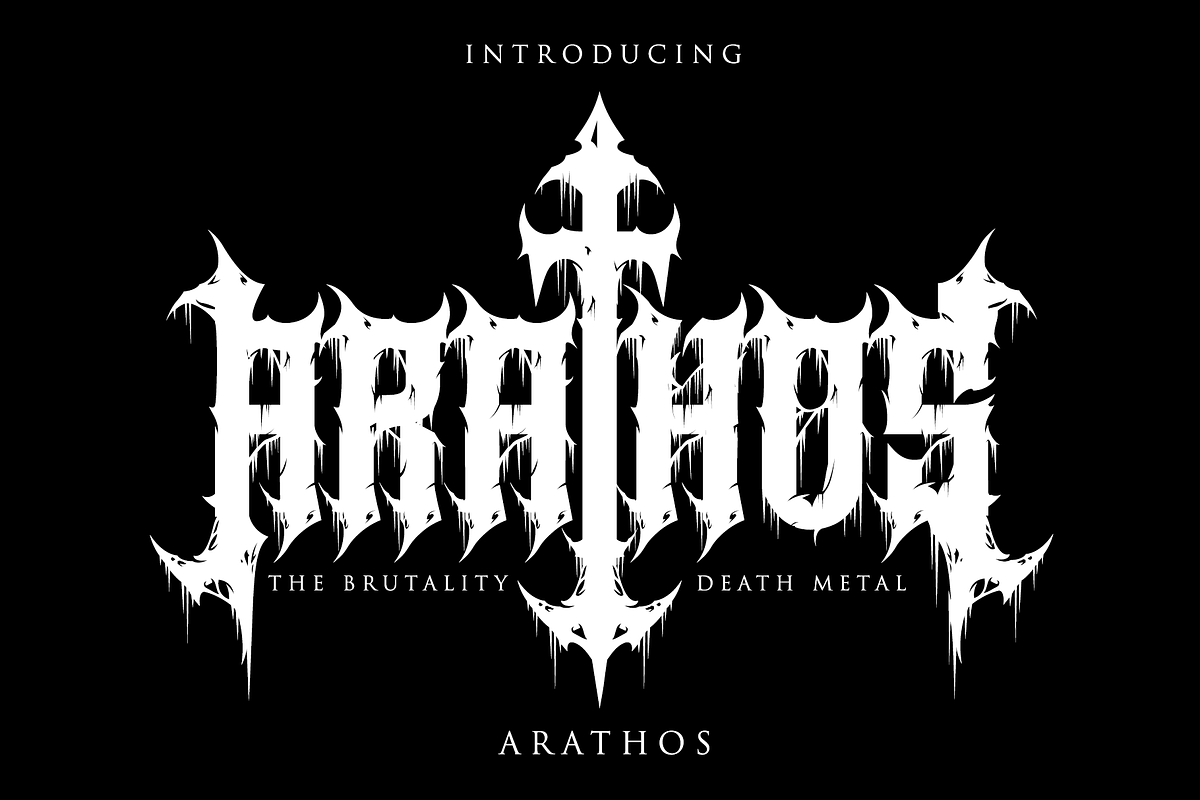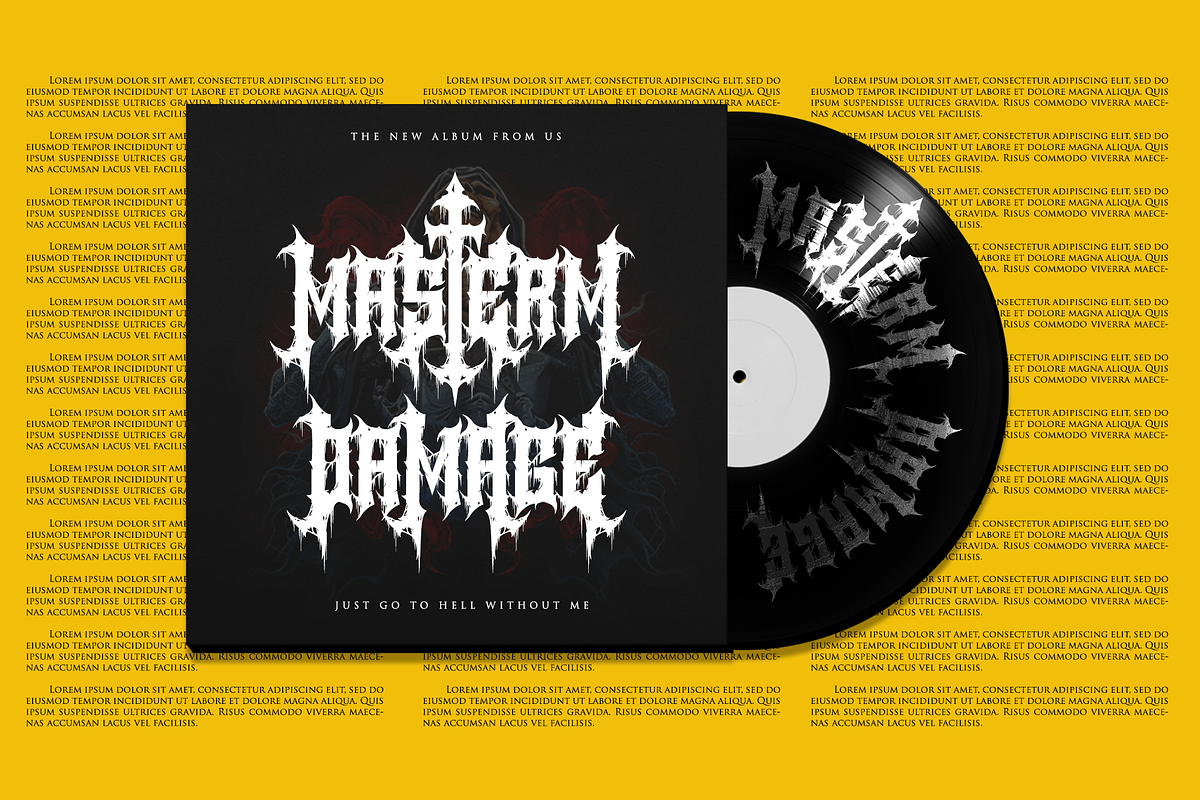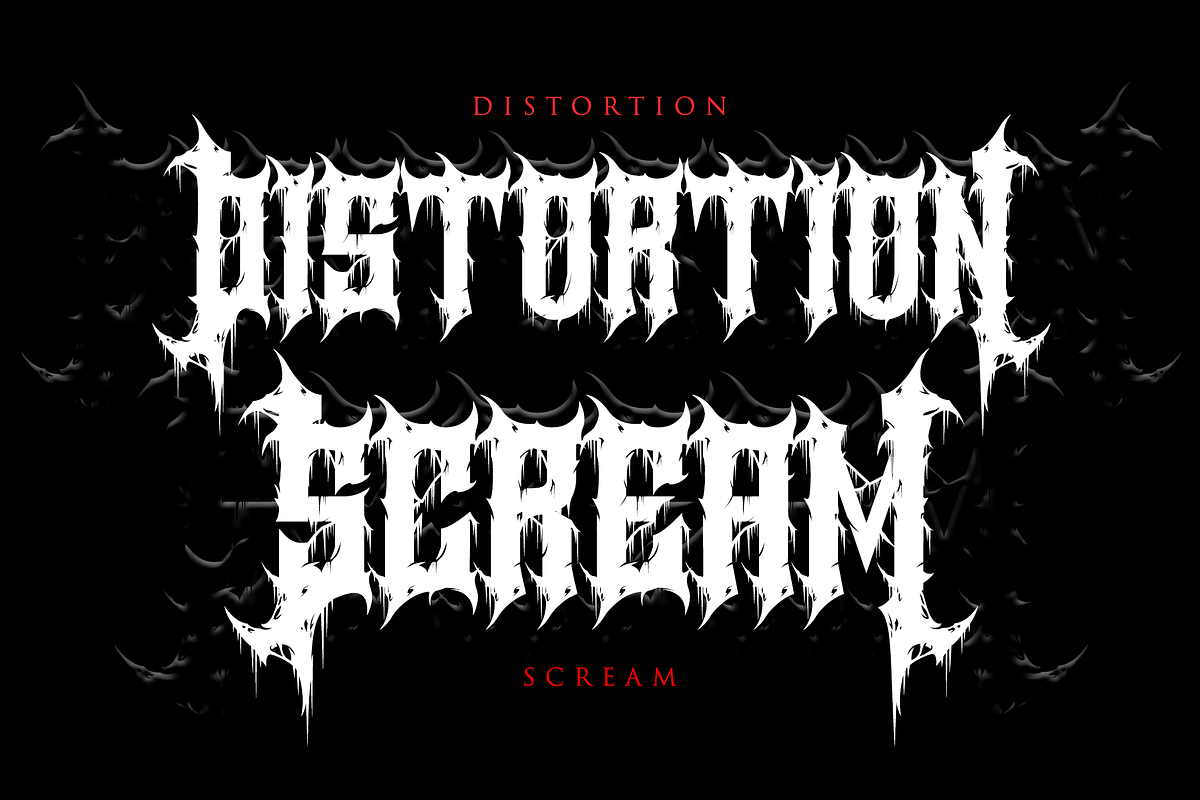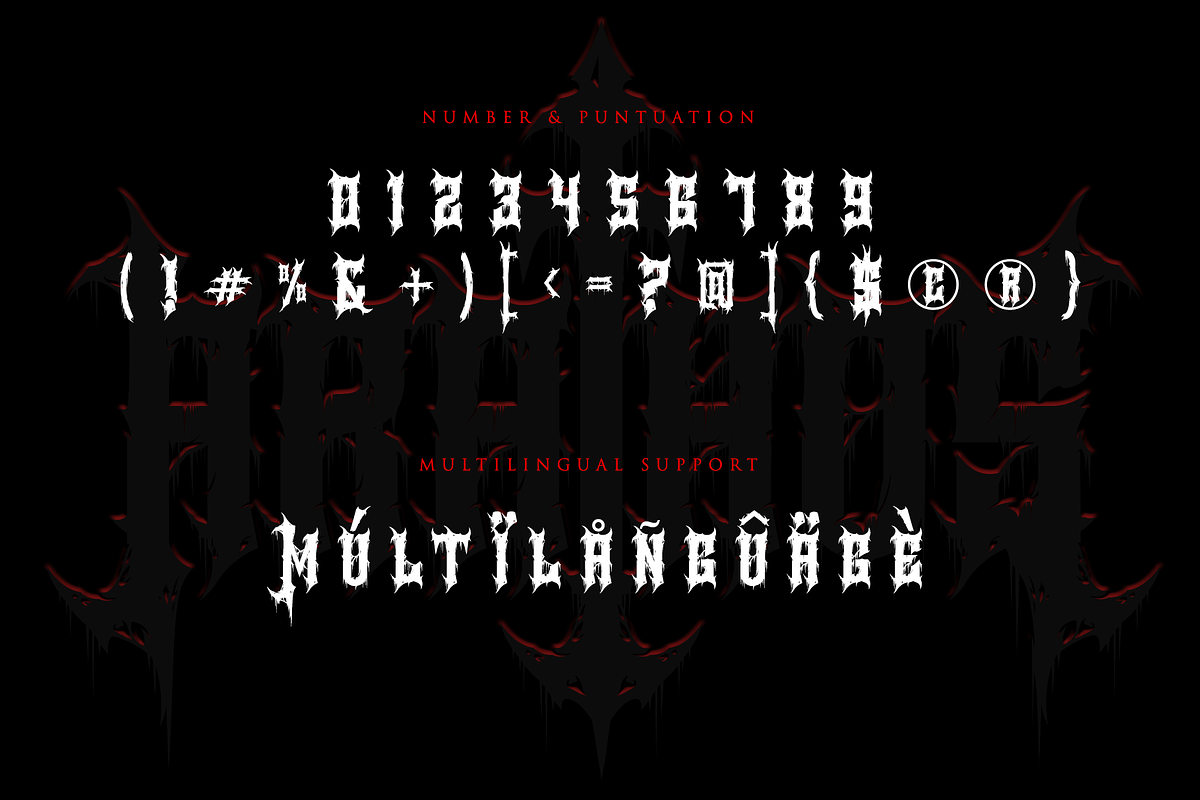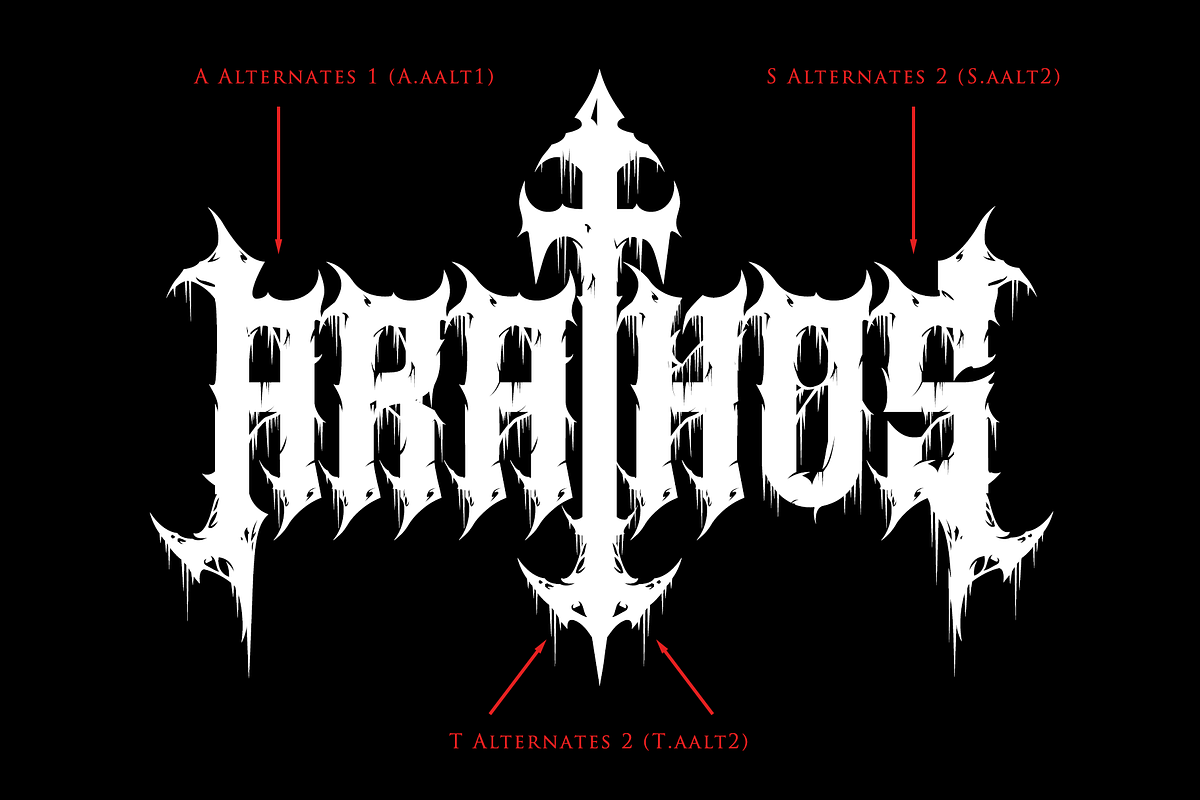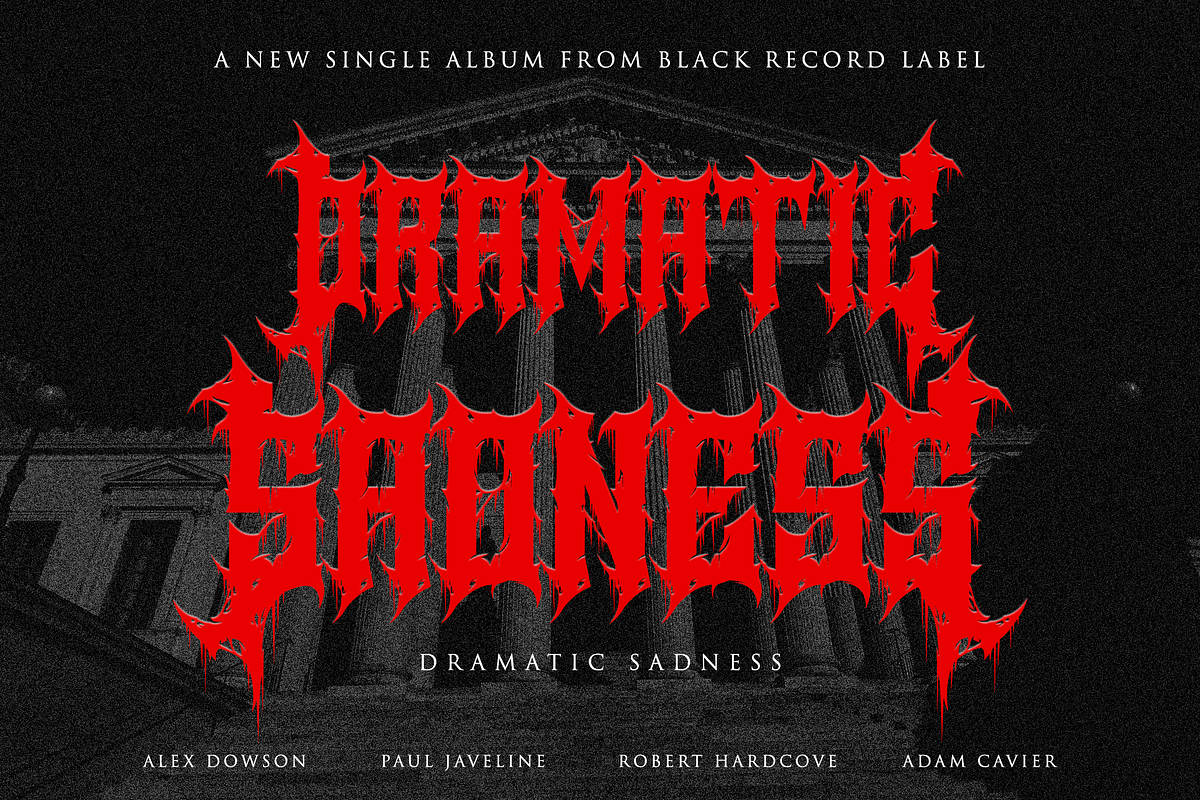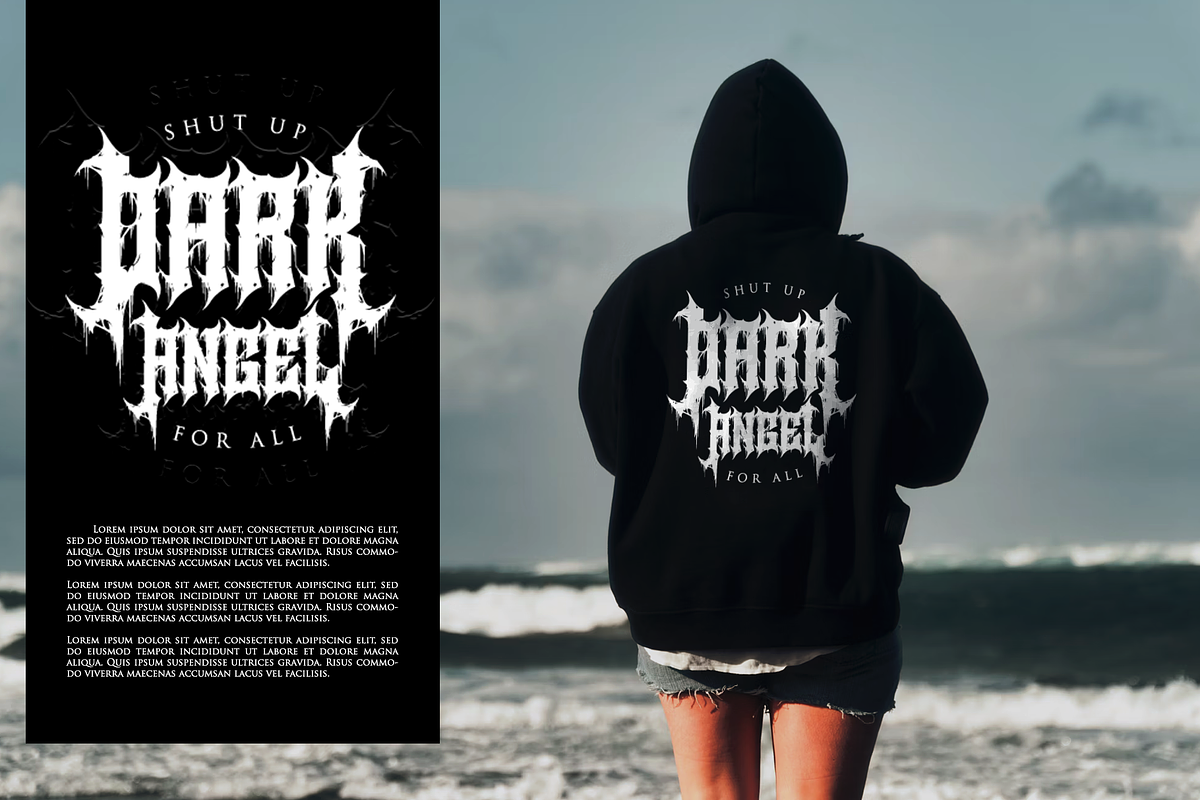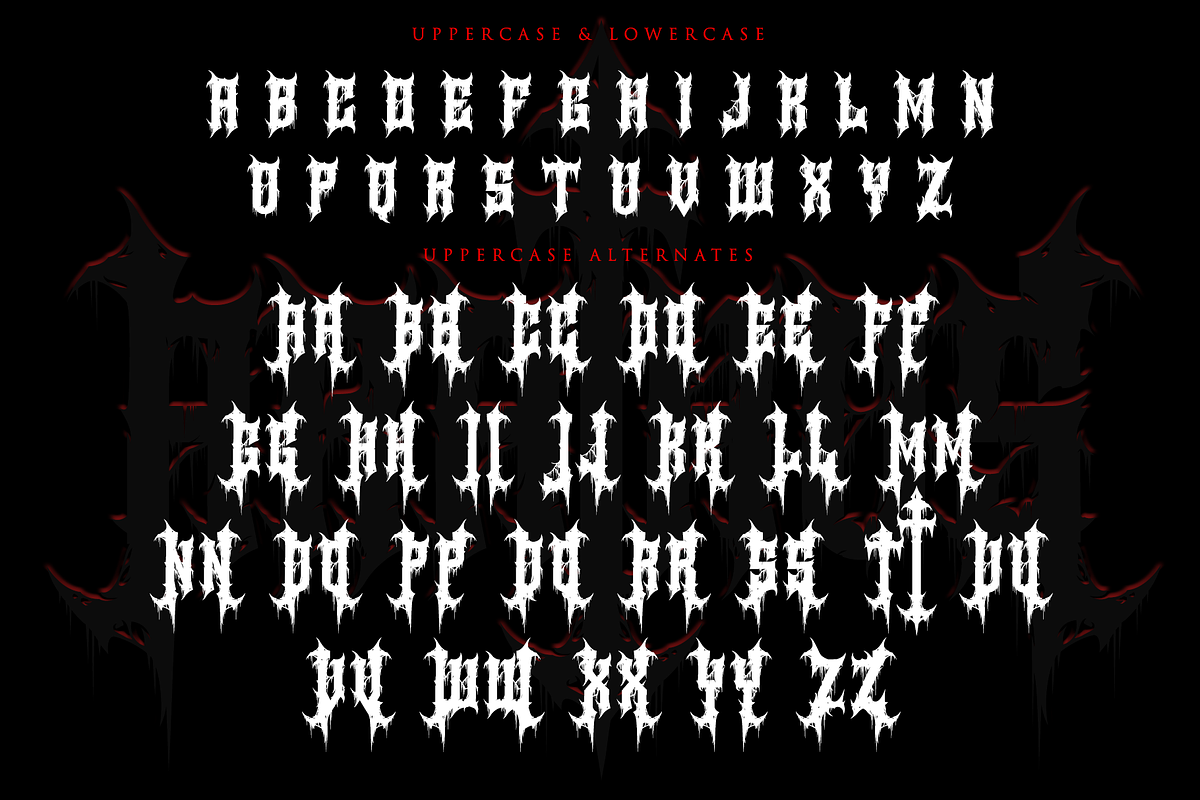
ARATHOS
ARATHOS is the Black Metal – Death Metal – Trash Metal or any Metal Music display font with all caps style looks and feel nice balanced.
Created your design just with the play alternates font
Honestly it works perfectly for headlines, logos, posters, packaging, T-shirts and much more for branding and anything designs.
- Character set A-Z in All Caps Style
- Alternates letter in Uppercase